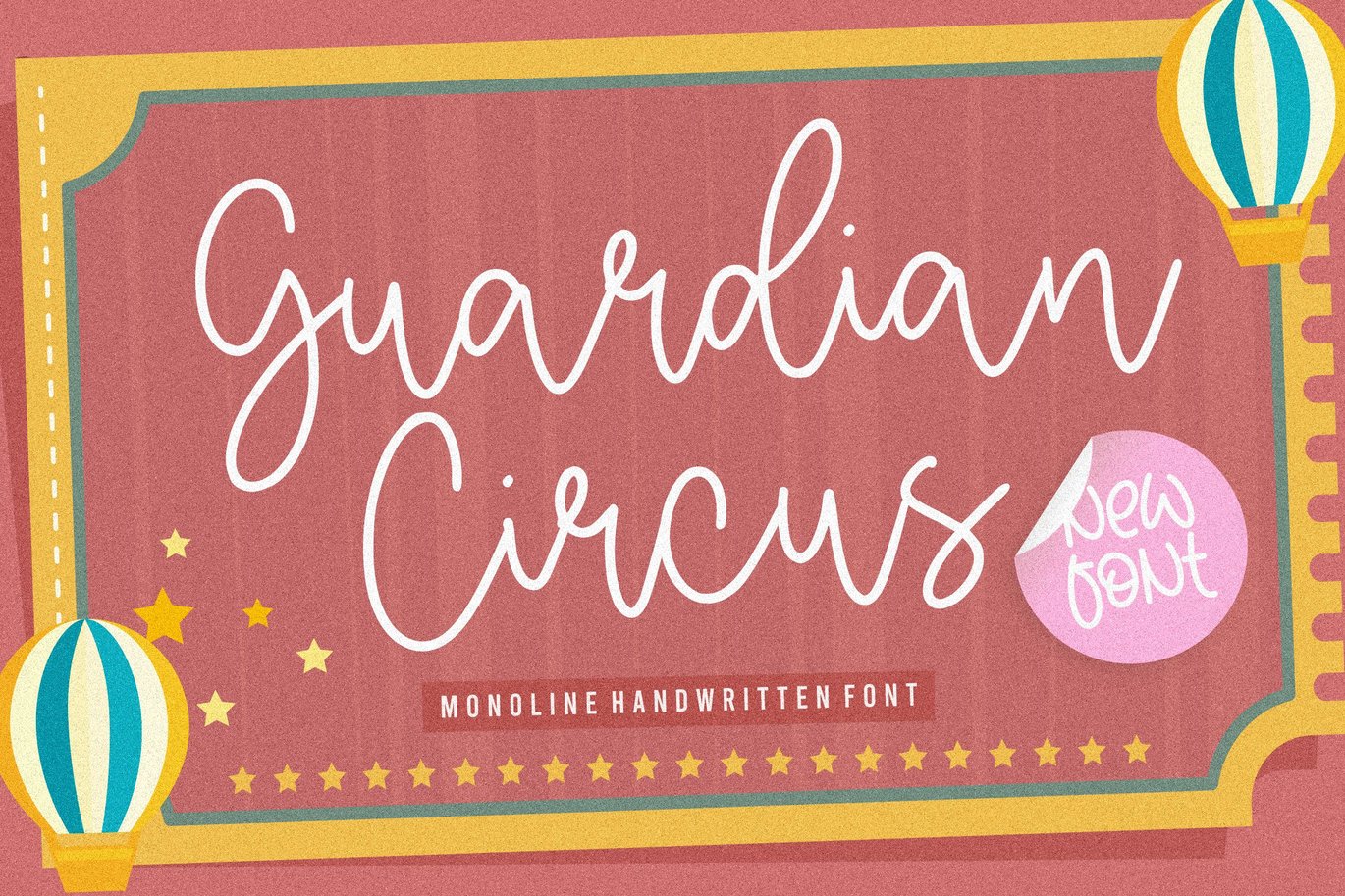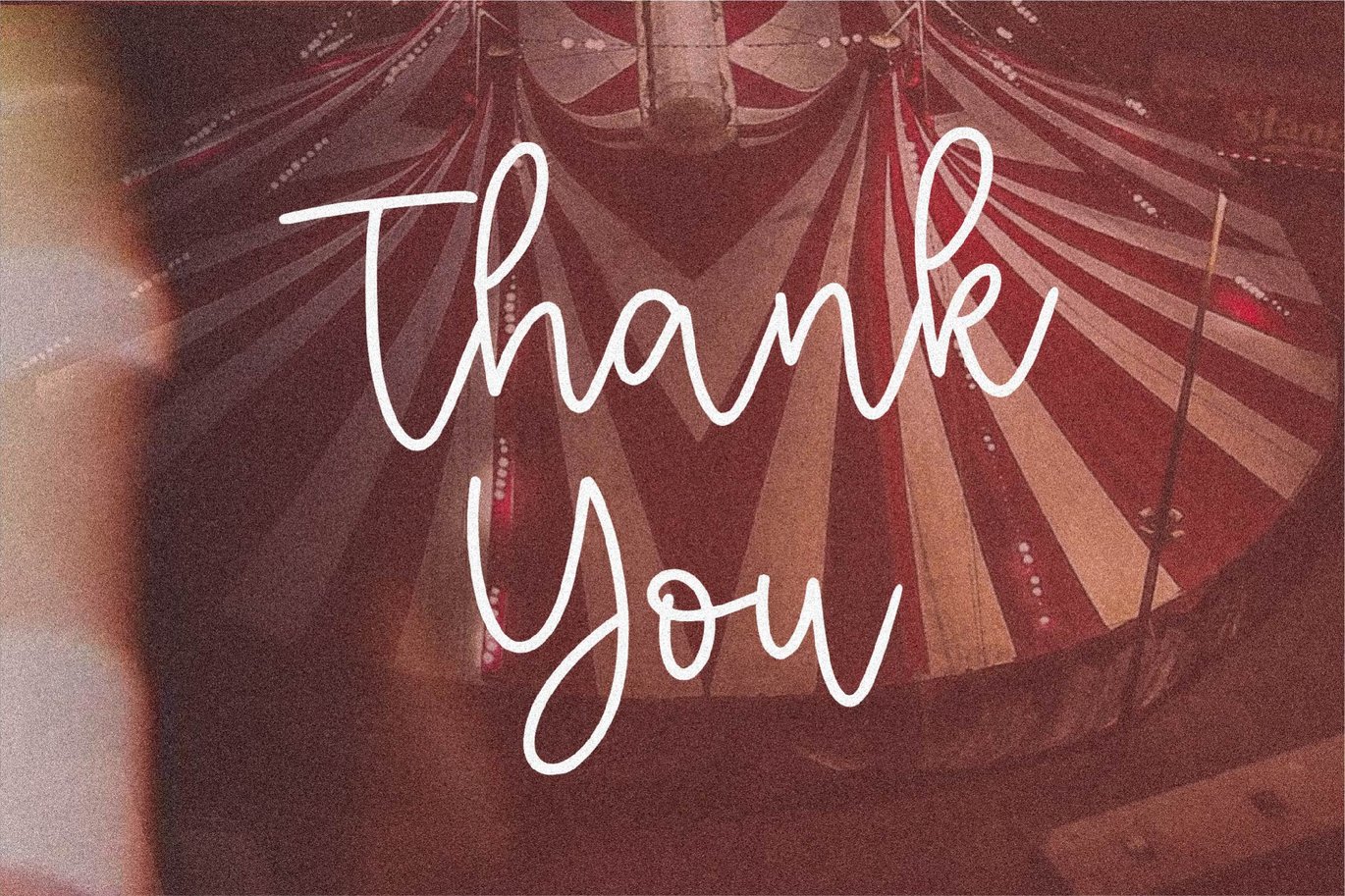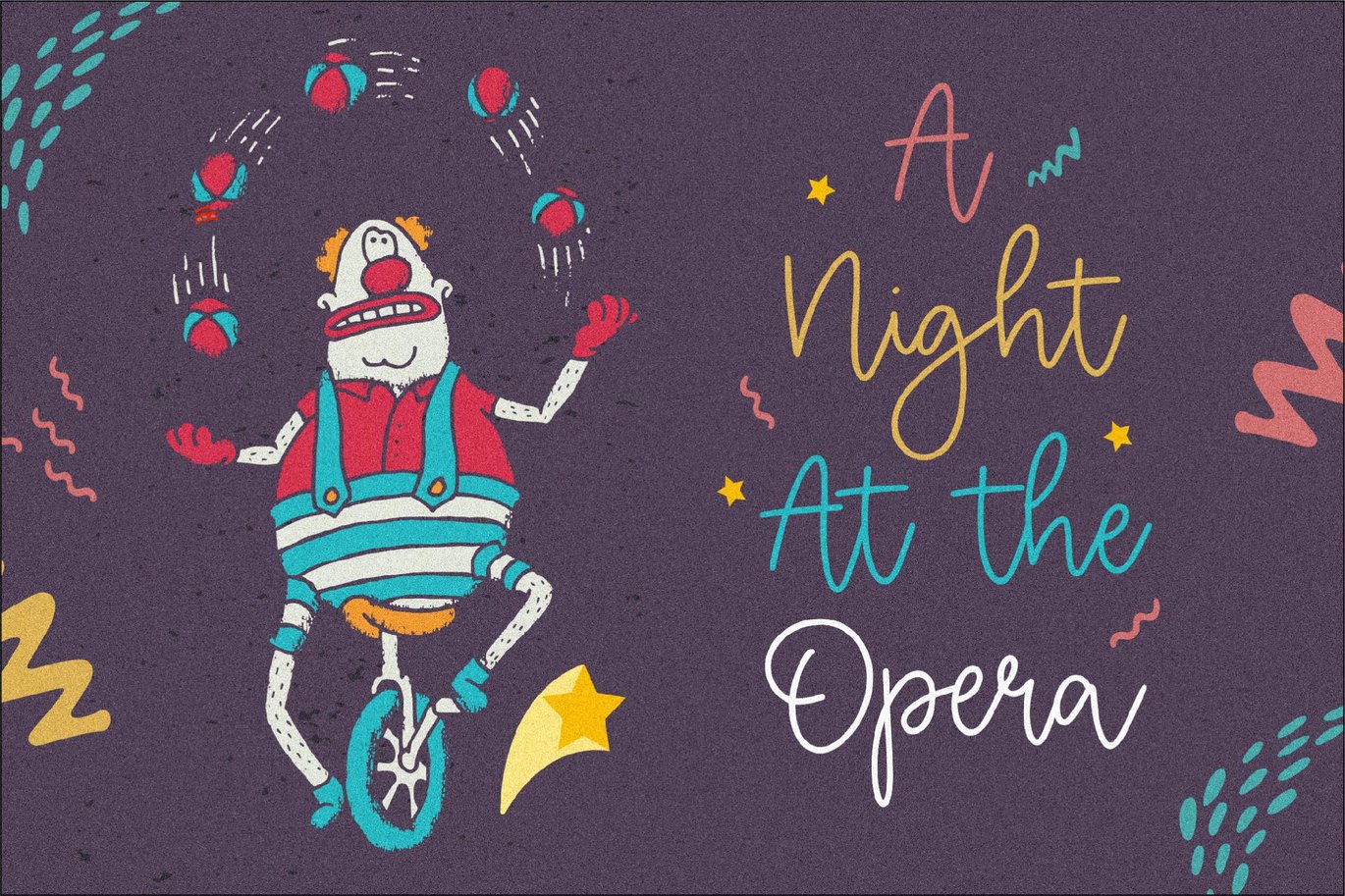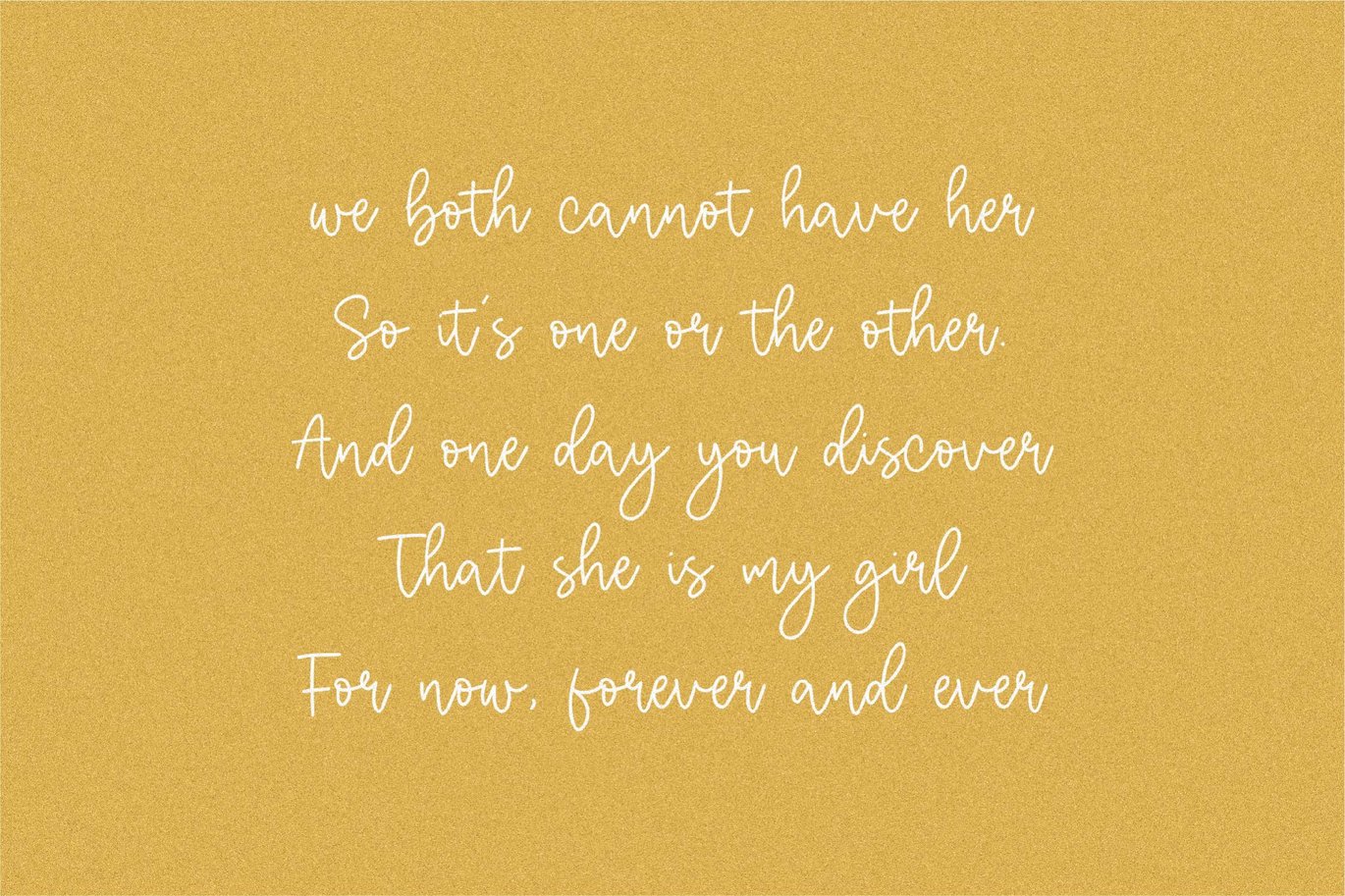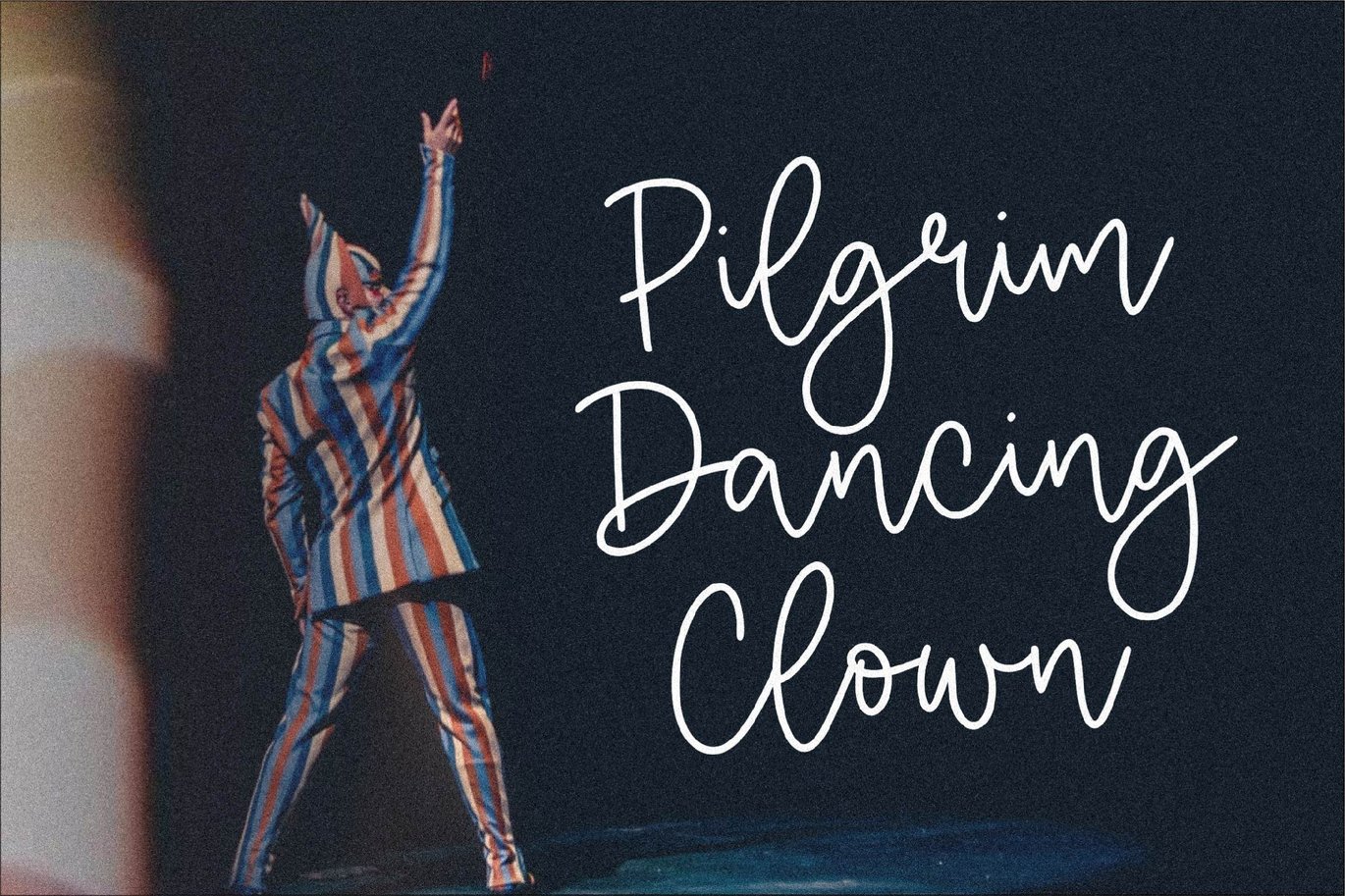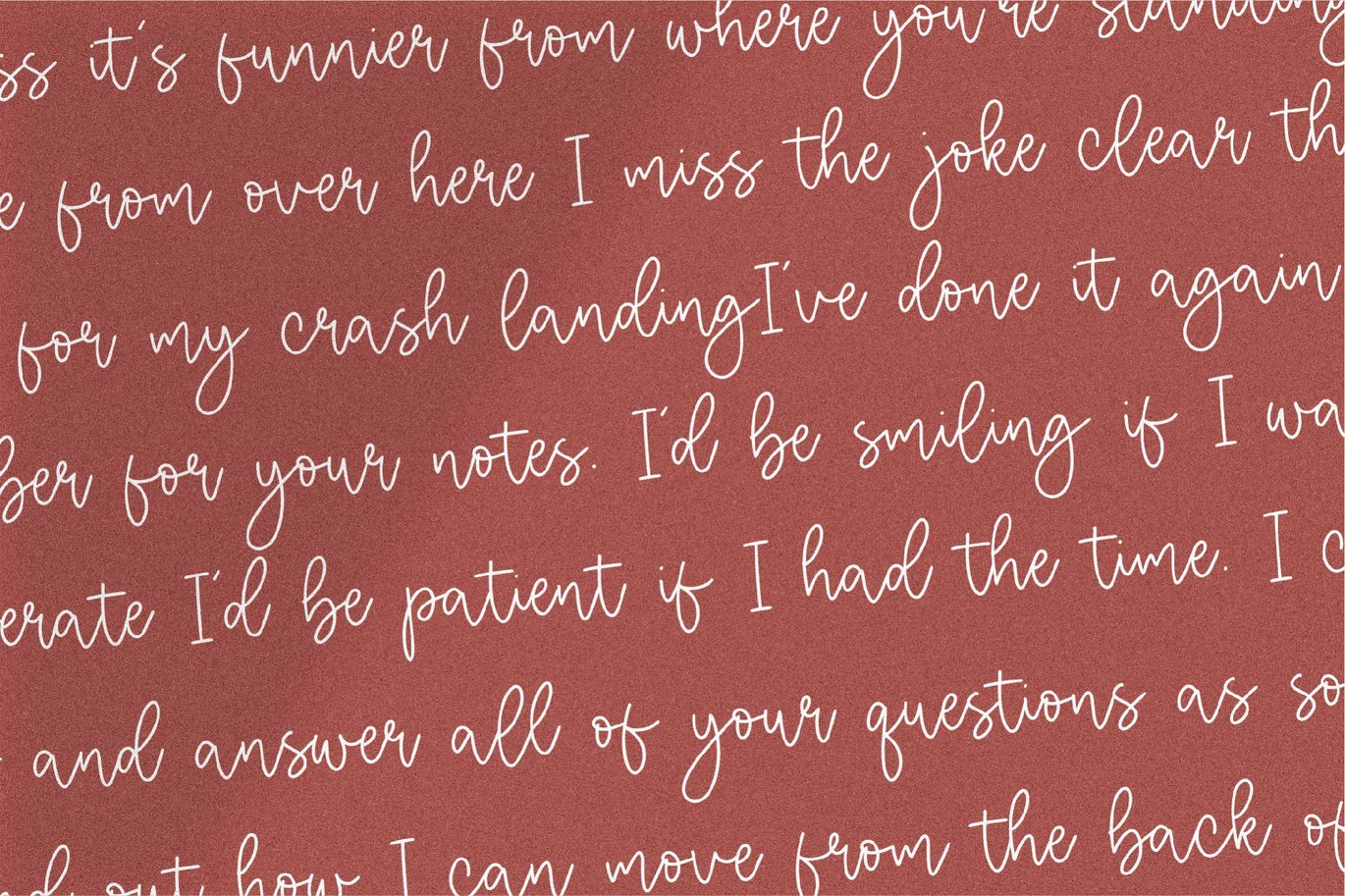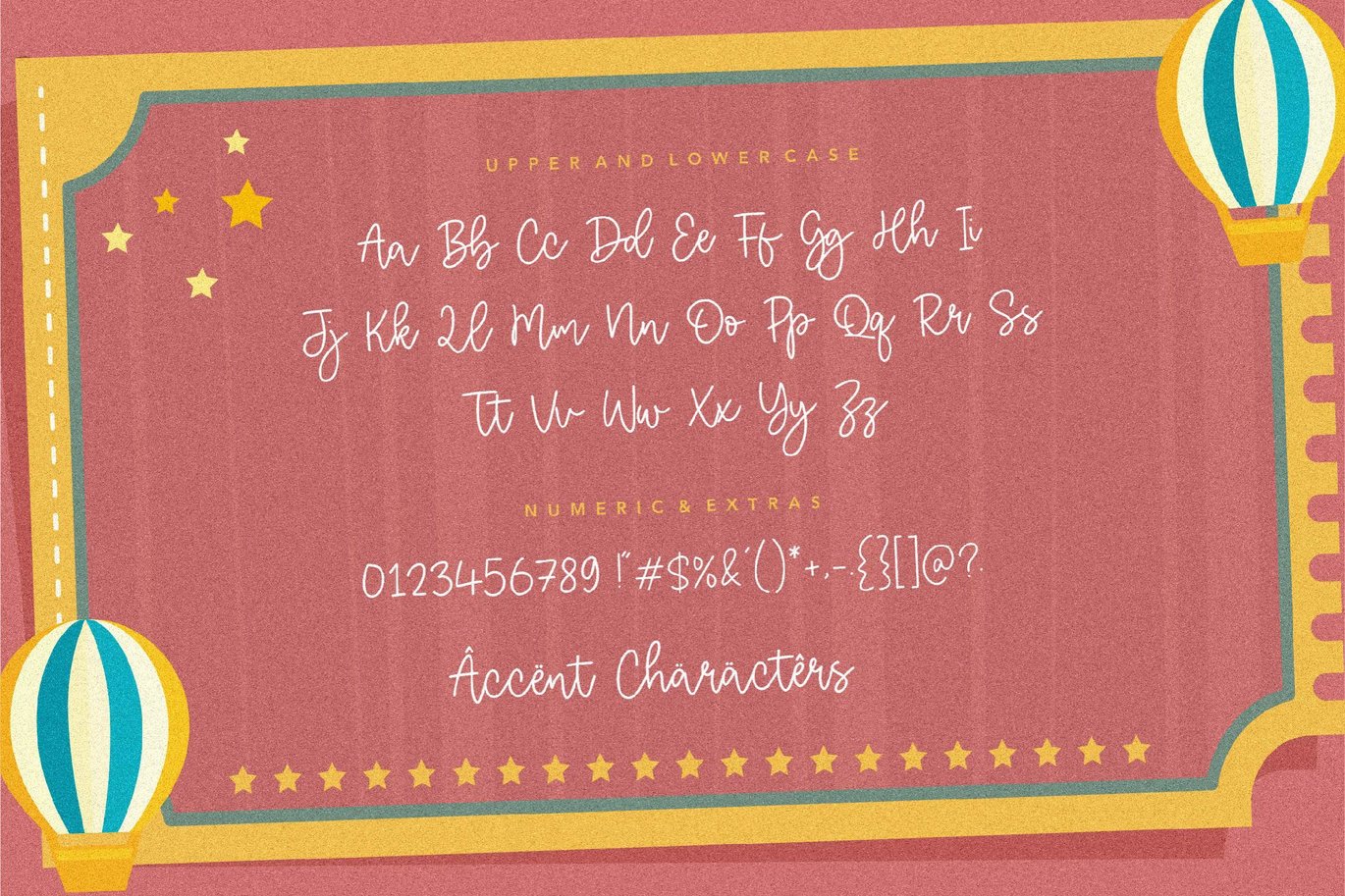
Guardian Circus – Monoline Handwritten Logo Font
Proudly Present, Guardian Circus Font.
Guardian Circus is a Monoline Handwritten Font.
Guardian Circus is perfect for product packaging, branding project, megazine, social media, wedding, or just used to express words above the background.